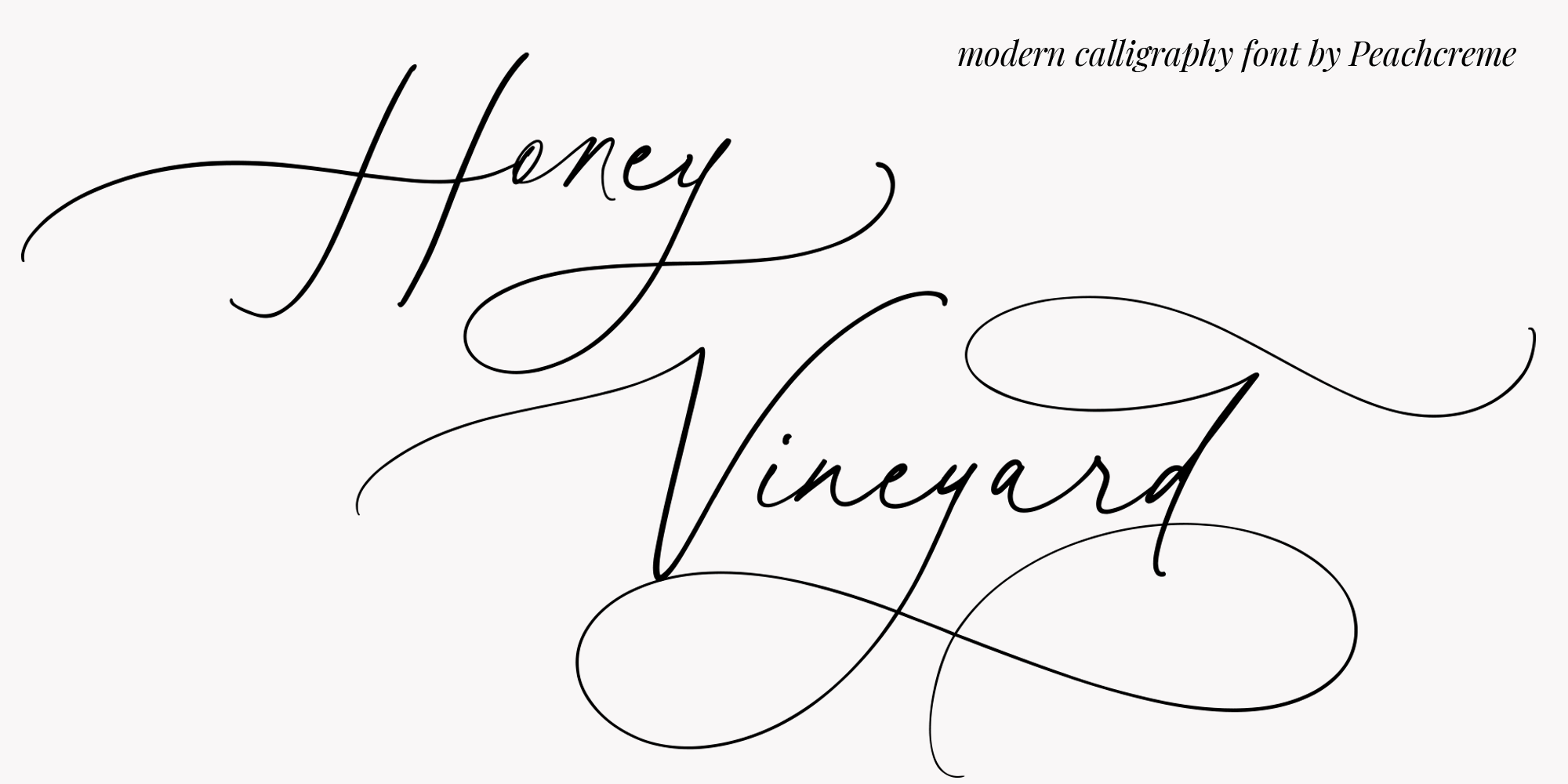
Honey Vineyard Font is ideal for winery branding, artisanal honey labels, vineyard tourism materials, wine tasting event invitations, organic farm signage, rustic wedding stationery, countryside bed and breakfast marketing, farmers market displays, agricultural heritage festivals, and natural product packaging designs.
What makes Honey Vineyard Font exciting is its golden sweetness and vineyard elegance that captures the essence of countryside abundance with artisanal charm and natural sophistication. This enchanting typeface embodies the spirit of agricultural heritage with its flowing character forms and harvest-inspired proportions that evoke rolling vineyard hills, golden honey dripping from wooden spoons, and the timeless beauty of working the land with passion and dedication. The font's rustic character creates an immediate connection to authentic farm-to-table experiences and artisanal craftsmanship.
Honey Vineyard Font family includes regular weight with organically crafted character designs featuring vineyard curves and harvest-inspired proportions. The typeface maintains excellent readability while showcasing its distinctive agricultural personality through lovingly designed letterforms that seem to flow like honey and grow like grapevines reaching toward warm sunshine.
Artisan producers consistently choose Honey Vineyard Font Free Download for projects requiring authentic agricultural appeal and artisanal credibility. This remarkable typeface brings the sweetness of countryside living to brand communications, combining rustic aesthetics with natural sophistication to create memorable farm experiences. The organically designed characters ensure delicious visual impact across all applications, making it essential for wineries, honey producers, and any agricultural organization seeking to communicate the authentic sweetness and natural beauty that comes from embracing traditional farming heritage through Honey Vineyard Font Free Download.